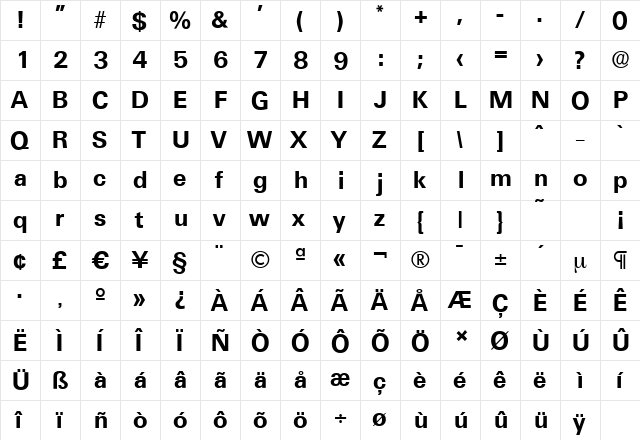
UltimateSerial Bold
Design Context for UltimateSerial Typeface
UltimateSerial is a composed and adaptable typeface that performs quietly and consistently across a wide range of design contexts. Its bold stroke weight gives it real presence on the page.